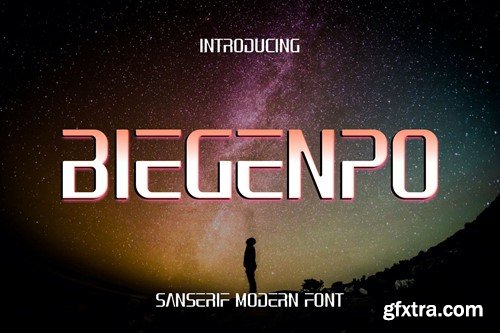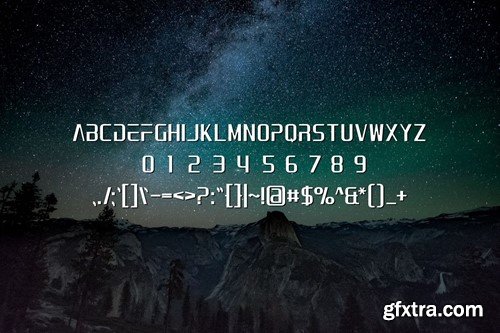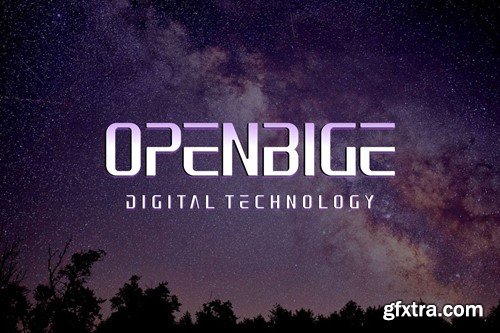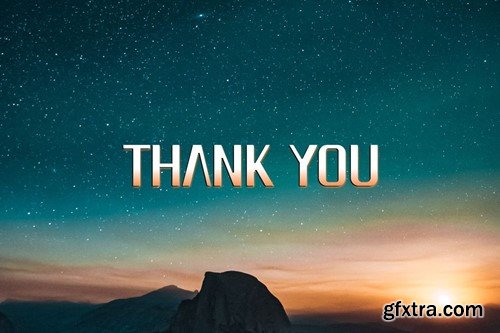
Biegenpo Font Sanserif 6E45AQH
Biegenpo Font Sanserif
Introducing our new Biegenpo Font Sanserif, Modern Font
Biegenpo Font Sanserif is an elegant and authentic display font.